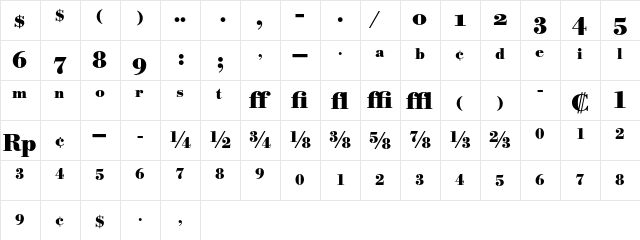
Bodoni BE Bold Expert Font Preview
Bodoni BE Bold Expert
Design Context for Bodoni BE Typeface
Bodoni BE is a composed and adaptable typeface that performs quietly and consistently across a wide range of design contexts. The heavy weight commands attention and anchors typographic hierarchies.